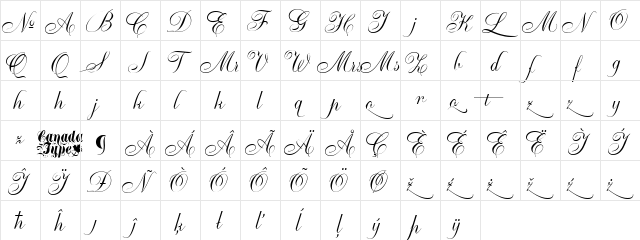
Ambassador Script Alts Regular
| Foundry | Canada Type |
| Designer | Rebecca Alaccari |
Design Context for Ambassador Script Alts Typeface
Ambassador Script Alts brings a calligraphic fluidity to the page — its connecting strokes and expressive curves give it an unmistakably human quality.
Font Pairing: Combine Ambassador Script Alts with a simple geometric sans for maximum contrast — the tension between flowing curves and clean structure is a classic typographic pairing.
Pro Tip: Pair Ambassador Script Alts with a clean sans-serif for supporting text. The contrast between fluid script and geometric structure creates an elegant typographic hierarchy.